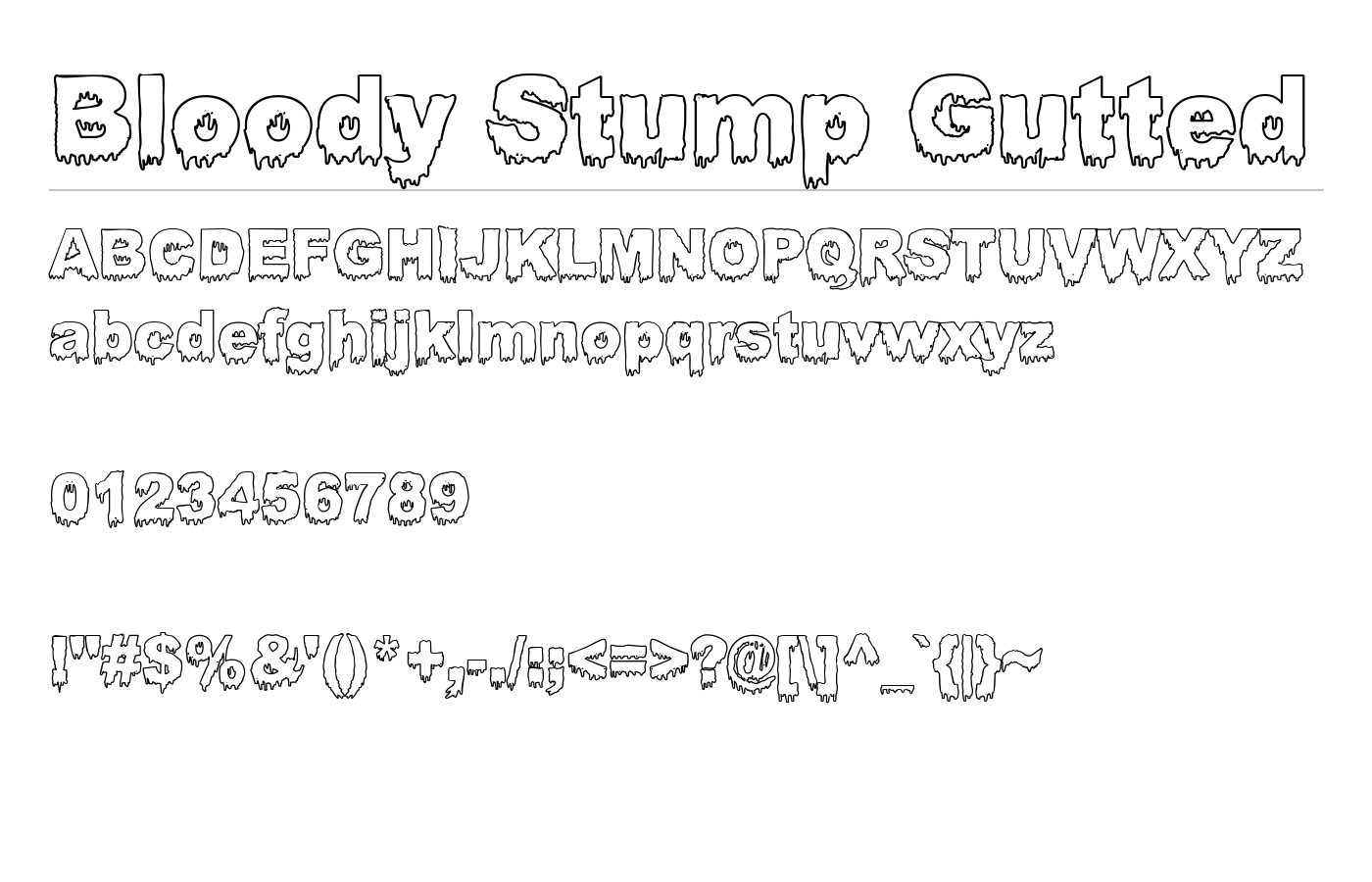
Bloody Stump Gutted is a playful, decorative sans serif font with a dripping, jagged edge that gives it a spooky and horror-themed vibe. Its irregular, hollow letterforms evoke a hand-crafted, eerie look, making it perfect for seasonal designs or creative projects that want to convey fun fright or Halloween spirit. This font works best in headlines, posters, and themed branding where an eye-catching, spooky flair is needed.
Bloody Stump Gutted Font
About Bloody Stump Gutted Font